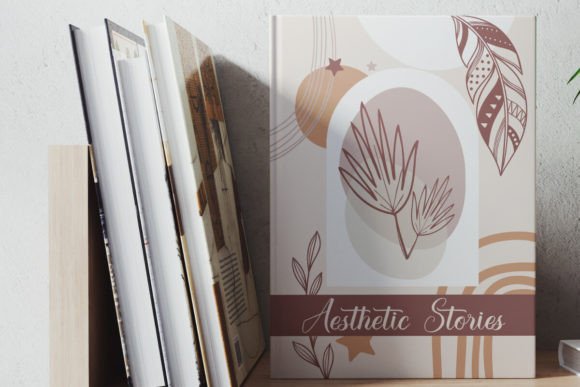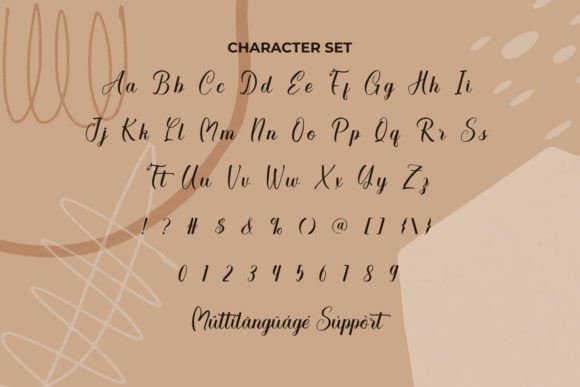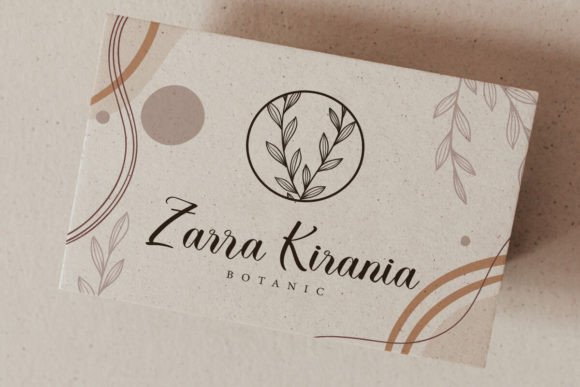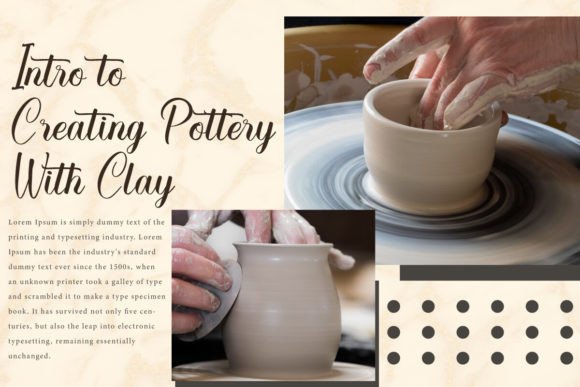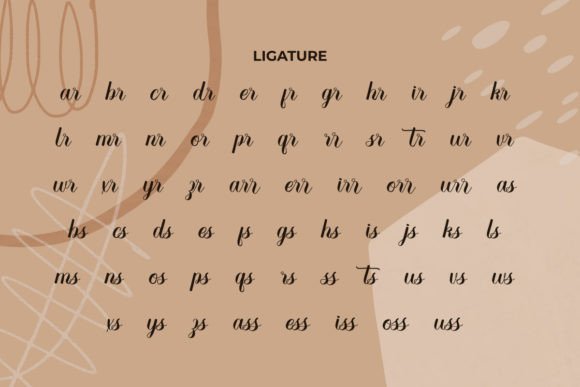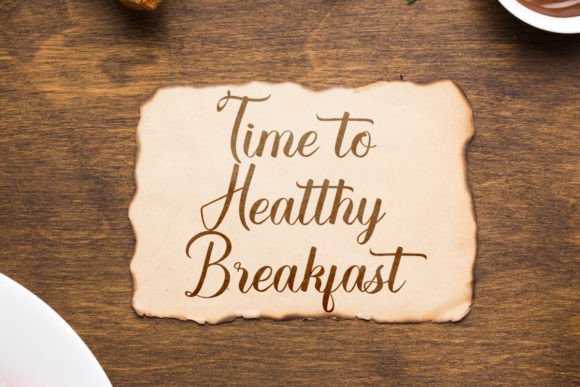
Aesthetic Stories Font: Elevate Your Brand with Elegance and Sophistication
In the world of design, typography plays a crucial role in conveying the tone and personality of a brand. A well-chosen font can make all the difference in creating a lasting impression on your audience. If you’re a designer or craftsperson looking for a stylish and versatile font to elevate your brand, look no further than Aesthetic Stories Font. In this article, we’ll explore the features and benefits of this beautiful calligraphic font and how it can enhance your brand’s visual identity.
What is Aesthetic Stories Font?
Aesthetic Stories Font is a stunning calligraphic font that boasts a fresh and modern look. Its clean and artistic appearance makes it an ideal choice for a wide range of industries, from architecture and fashion to food and wellness. This typography’s elegance and sophistication can add a touch of class to any brand, making it a versatile choice for designers and craftspersons.
Key Features of Aesthetic Stories Font
- Clean and Artistic Appearance: Aesthetic Stories Font features a clean and artistic design that exudes elegance and sophistication.
- Calligraphic Style: This font’s calligraphic style adds a touch of warmth and personality to your brand’s typography.
- Versatile: Aesthetic Stories Font is suitable for a wide range of industries, including architect, café, clothing brand, event organizer, florist, furniture, handicrafts, homeware, jewelry, library, pottery, printing, publishing, real estate, restaurant, skincare, spa salon, writer, and many more.
- Easy to Read: Despite its artistic design, Aesthetic Stories Font remains easy to read, making it perfect for body text and headlines.
Industries that Can Benefit from Aesthetic Stories Font
Aesthetic Stories Font is an excellent choice for various industries that value elegance and sophistication. Some of the industries that can benefit from this font include:
- Architecture and Real Estate: Aesthetic Stories Font’s clean and modern design makes it perfect for architecture and real estate brands that want to convey professionalism and elegance.
- Fashion and Beauty: This font’s artistic and stylish design makes it an excellent choice for fashion and beauty brands that want to add a touch of sophistication to their typography.
- Food and Beverage: Aesthetic Stories Font’s warm and inviting design makes it suitable for food and beverage brands that want to create a cozy and welcoming atmosphere.
- Wellness and Healthcare: This font’s clean and calming design makes it perfect for wellness and healthcare brands that want to convey a sense of serenity and professionalism.
How to Use Aesthetic Stories Font
Using Aesthetic Stories Font is easy and straightforward. Here are some tips on how to incorporate this font into your design:
- Pair it with Other Fonts: Aesthetic Stories Font pairs well with other fonts, such as sans-serif fonts, to create a visually appealing contrast.
- Use it for Headlines and Body Text: This font is suitable for both headlines and body text, making it a versatile choice for your design.
- Experiment with Colors and Textures: Aesthetic Stories Font looks great in various colors and textures, so don’t be afraid to experiment and find the perfect combination for your brand.
Aesthetic Stories Font is a stunning calligraphic font that can elevate your brand’s visual identity with elegance and sophistication. Its clean and artistic appearance makes it suitable for a wide range of industries, from architecture and fashion to food and wellness. With its versatility and ease of use, Aesthetic Stories Font is an excellent choice for designers and craftspersons looking to add a touch of class to their typography. Try Aesthetic Stories Font today and see how it can transform your brand’s visual identity.